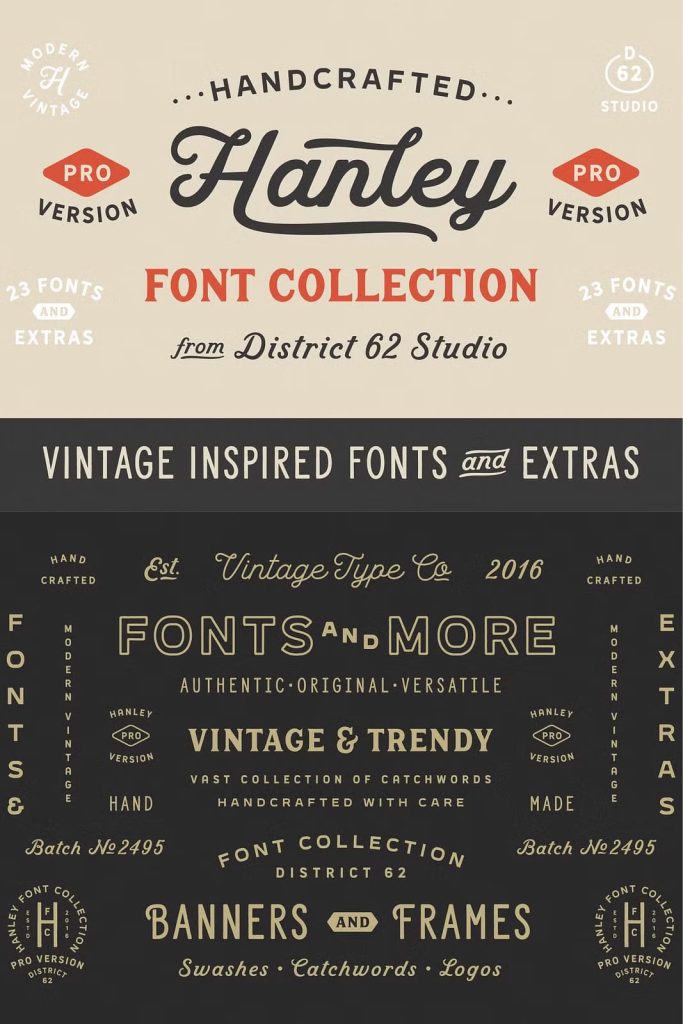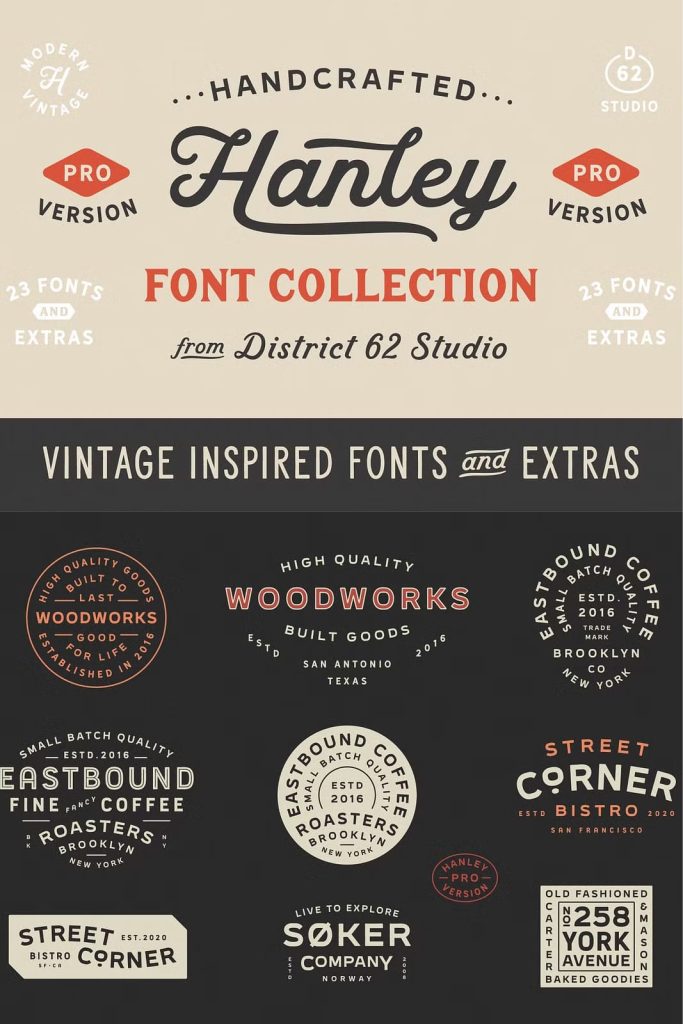
NEW UPDATE – We’ve Just added 6 new Sans Styles to this family and 36 bonus logos.
Introducing the new PRO VERSION of our Hanley Font Collection with bonus logos.
SO WHAT’S DIFFERENT?
Hanley Pro has 10 New Exclusive Font Styles including an alternate script and italic.
- Hanley Script Alt
- Hanley Italic
- Hanley Sans Two and Inline (an alternate style of Sans)
- Hanley Sans Wide
- Hanley Sans Extra Wide
- Hanley Sans Wide Outline
- Hanley Sans Extra Wide Outline.
- Hanley Slim Bold
- Hanley Slim Serif Bold.
Hanley Block Styles have been expanded with an entire set of Small Caps